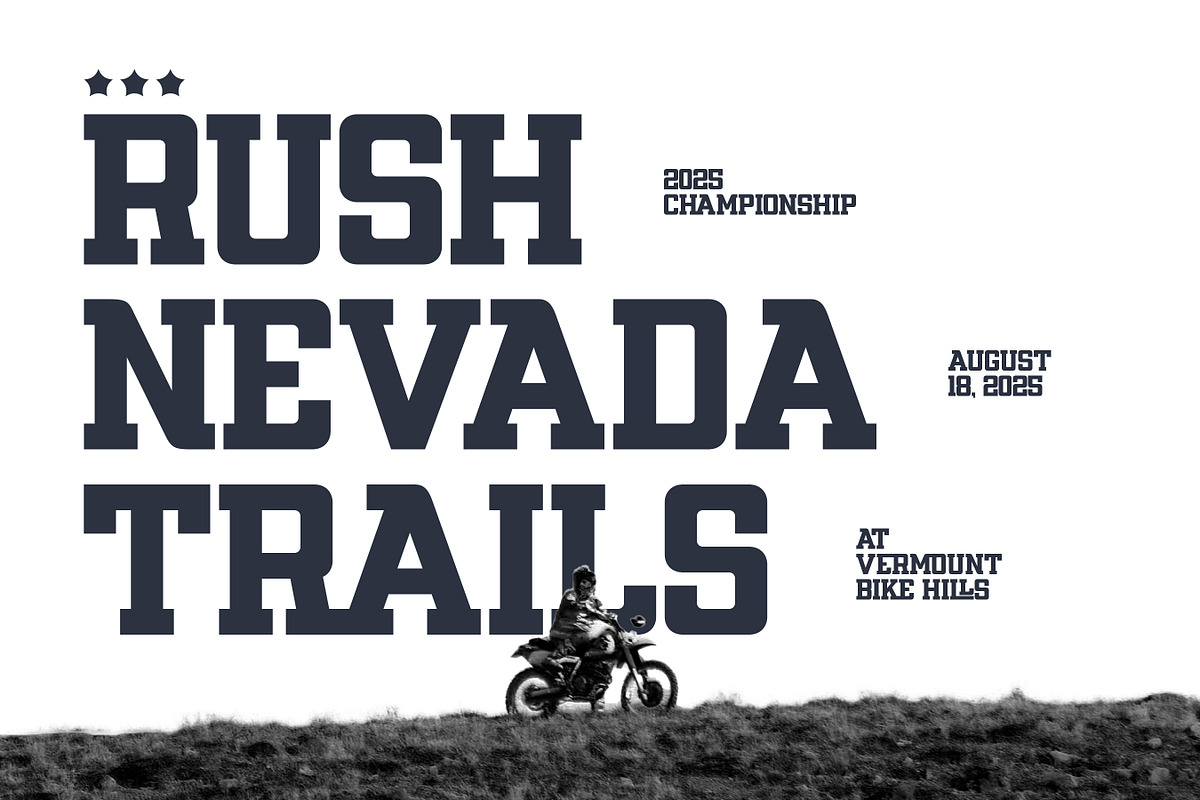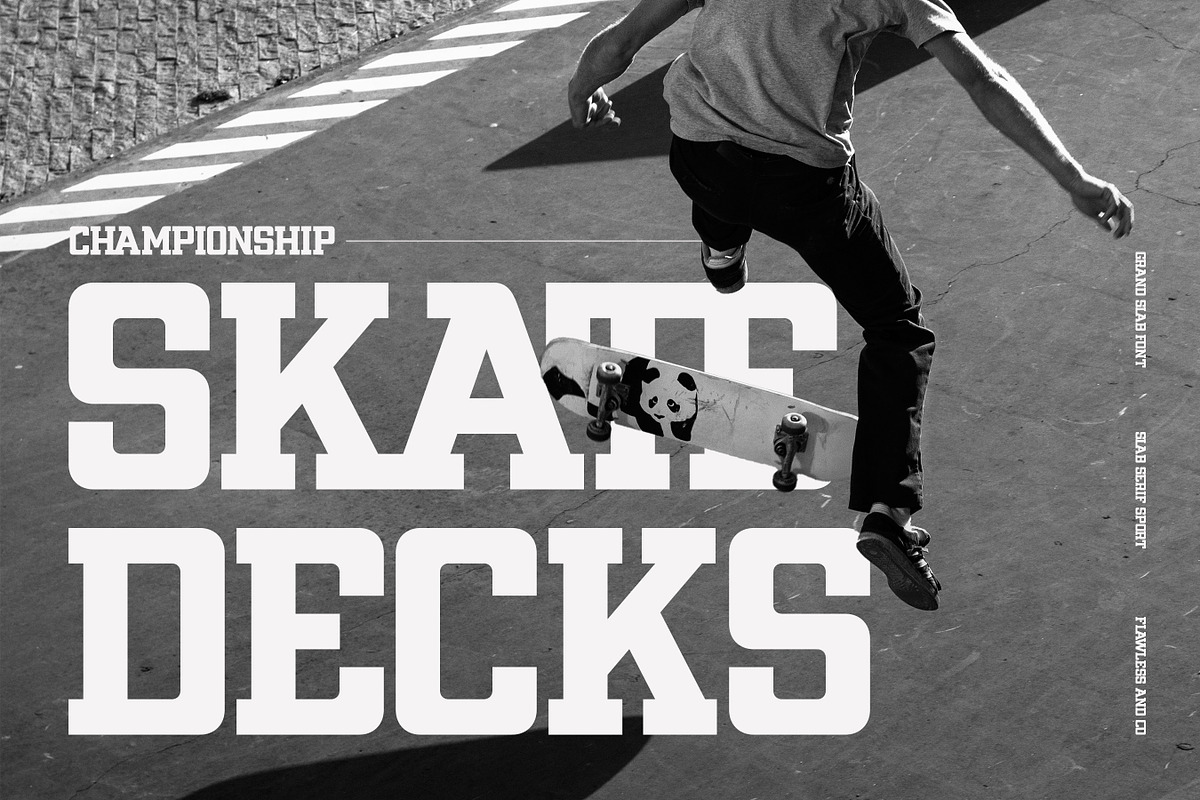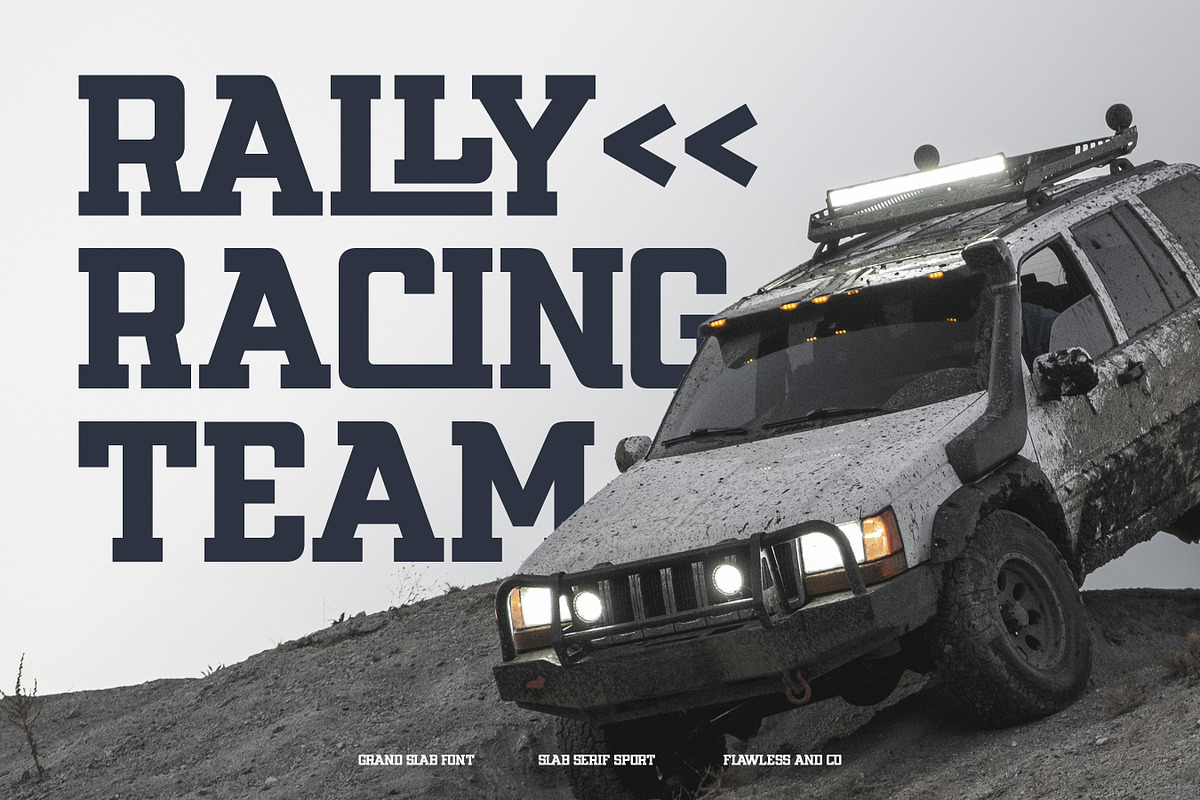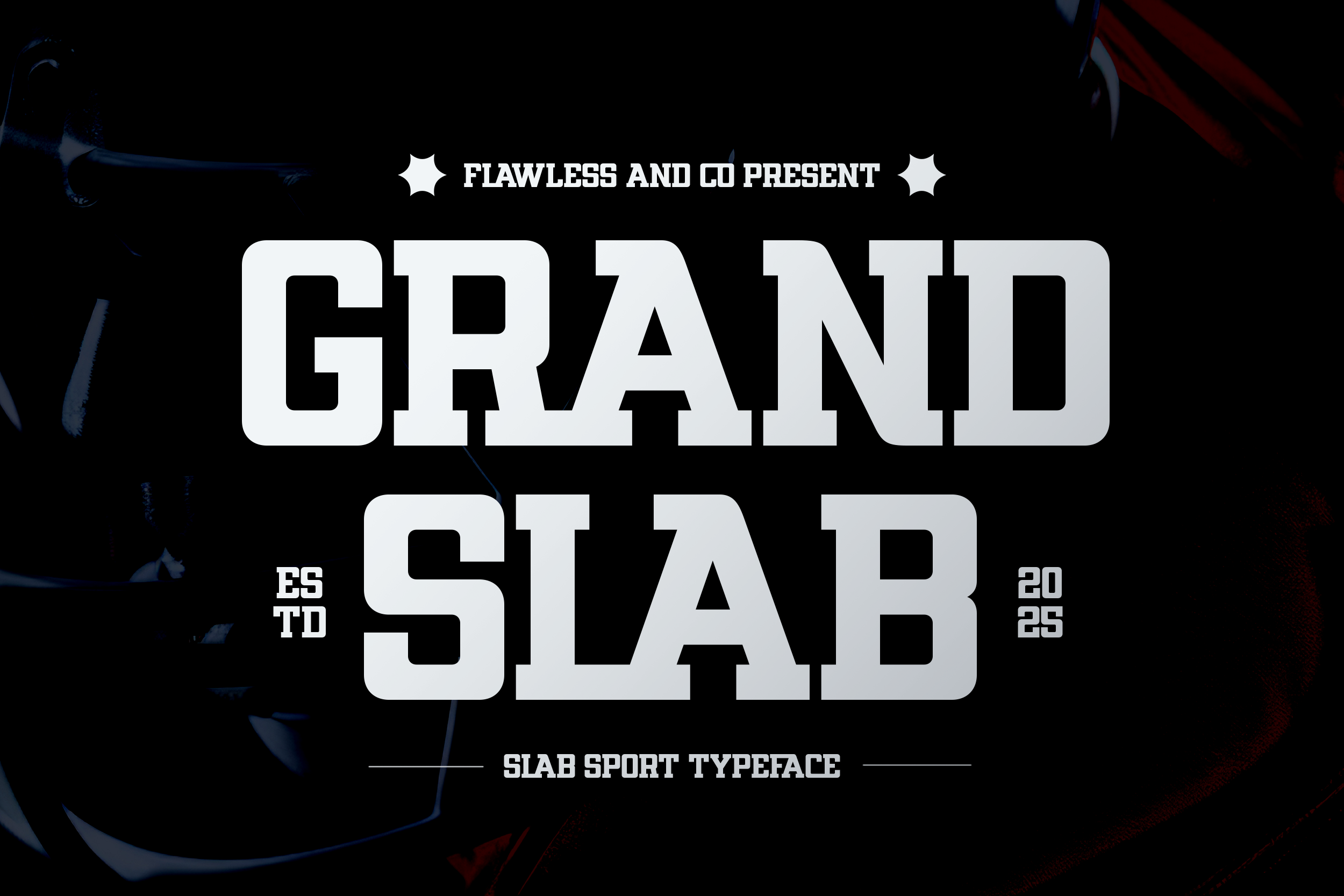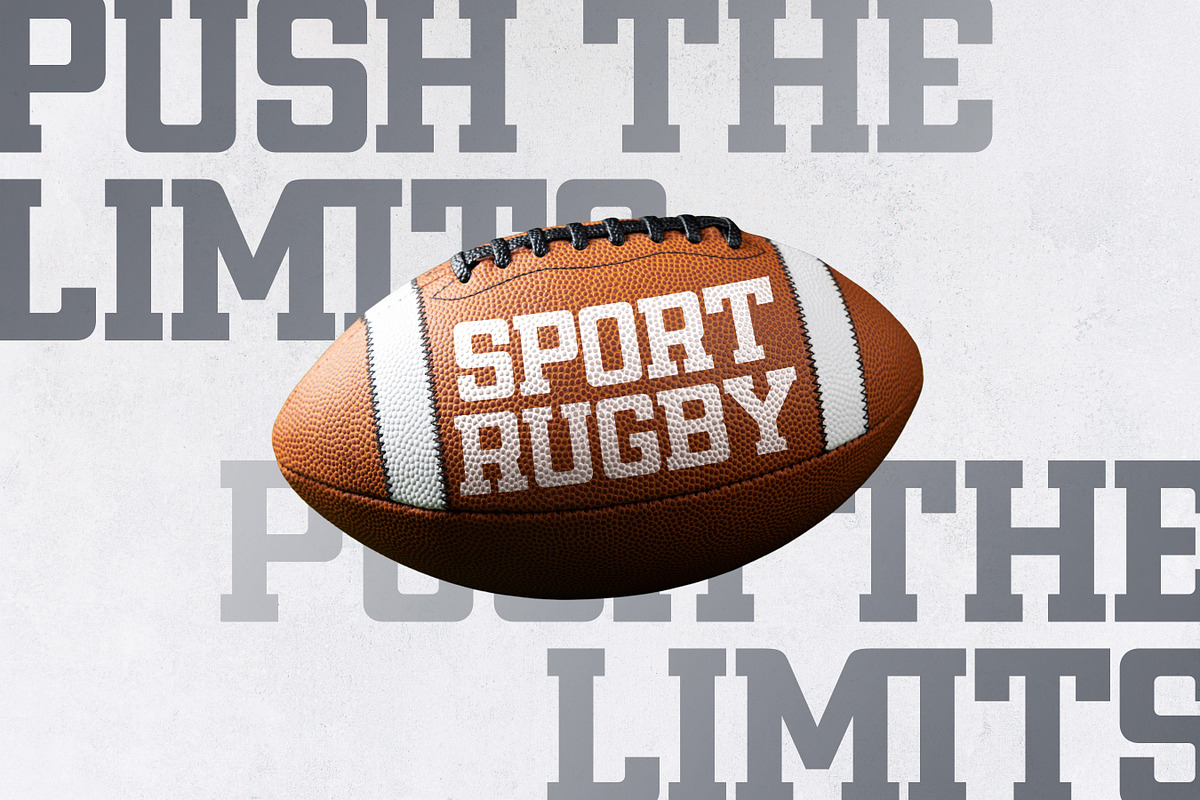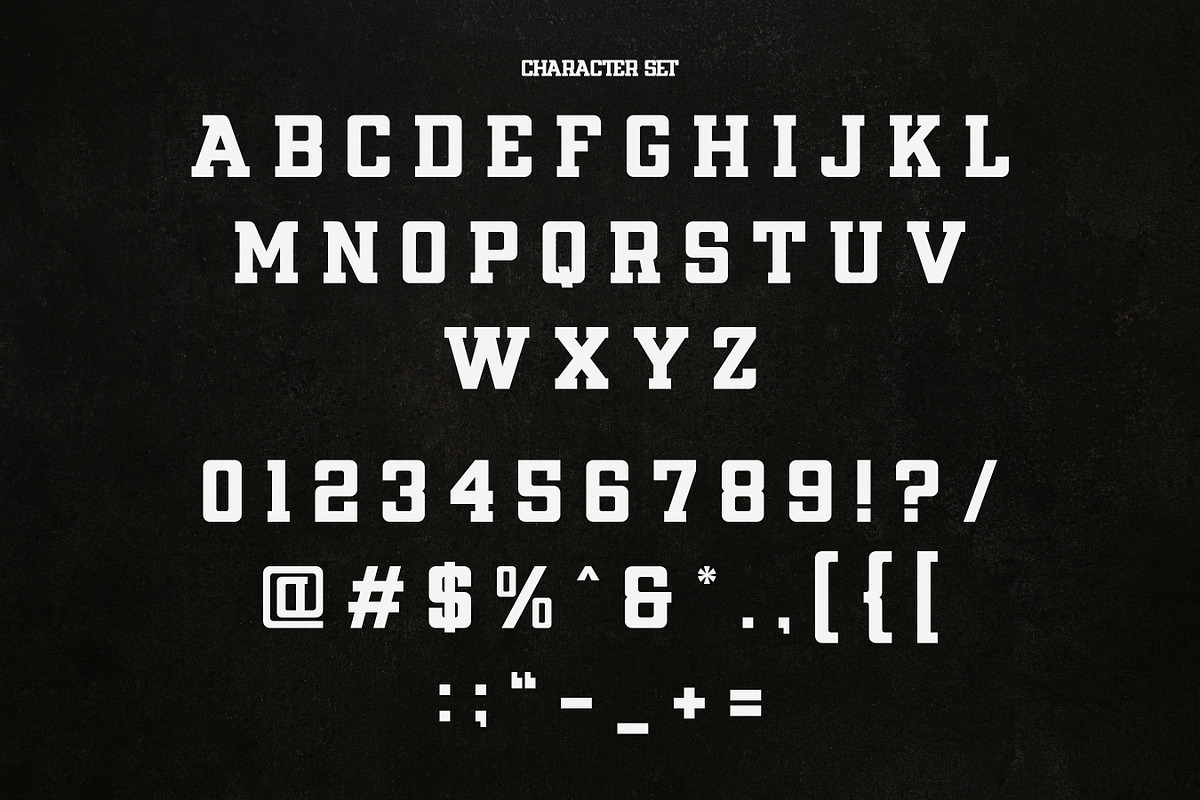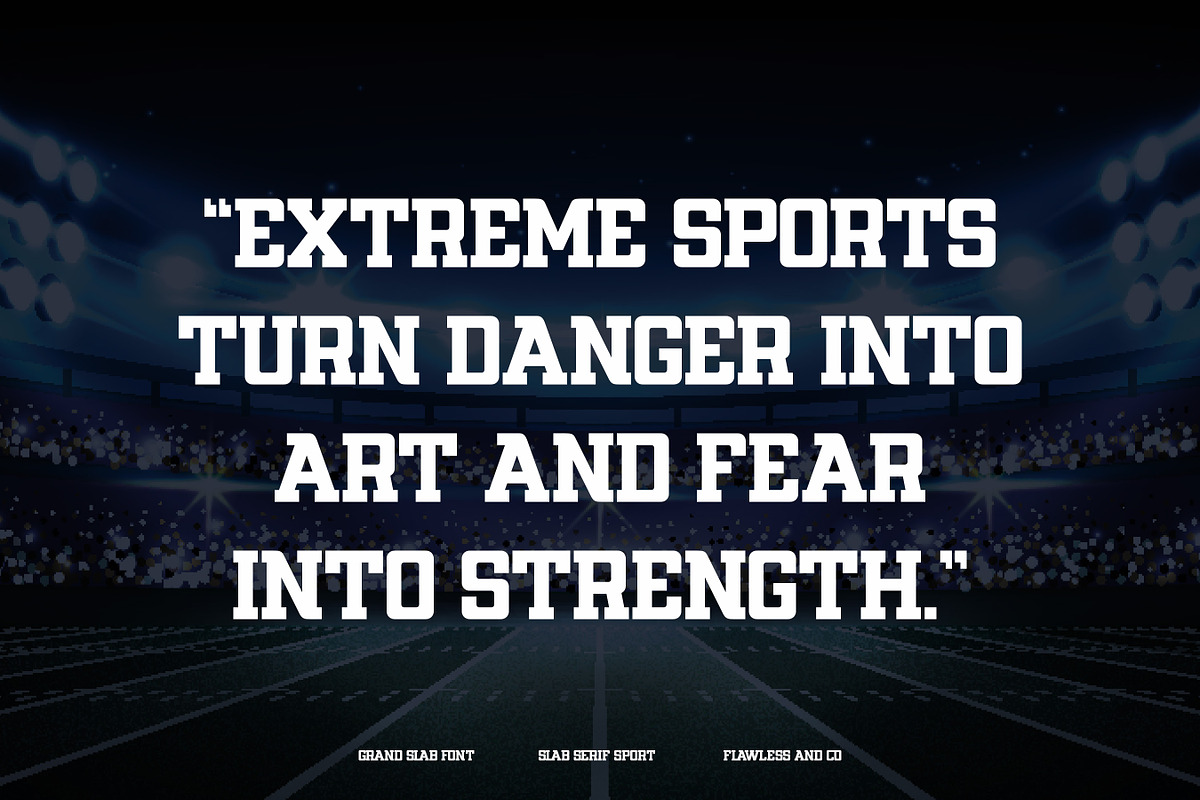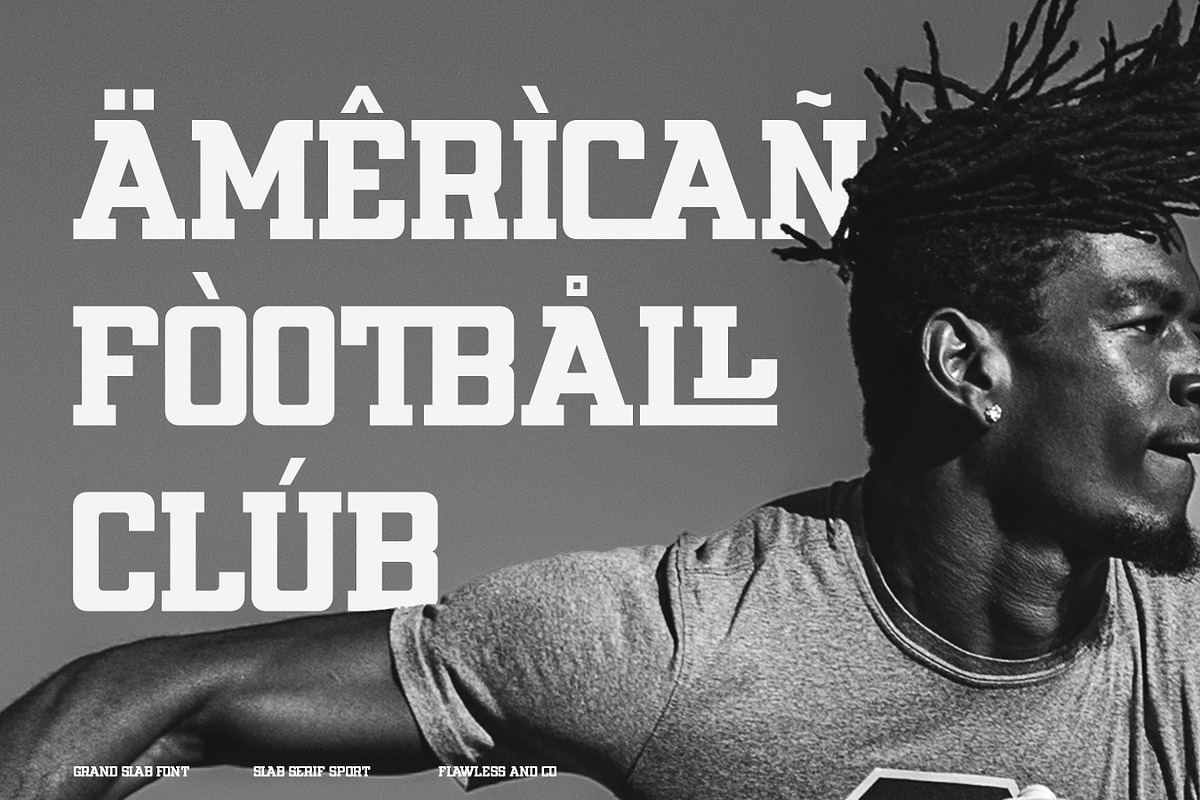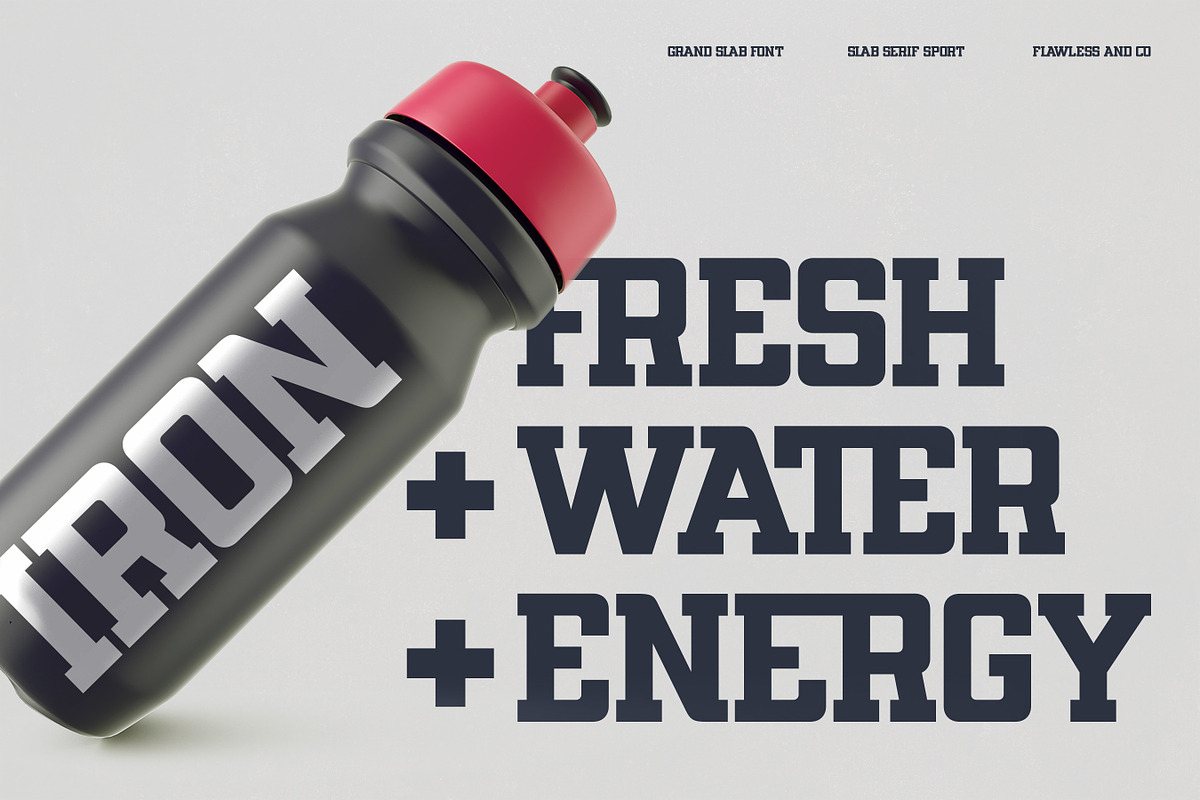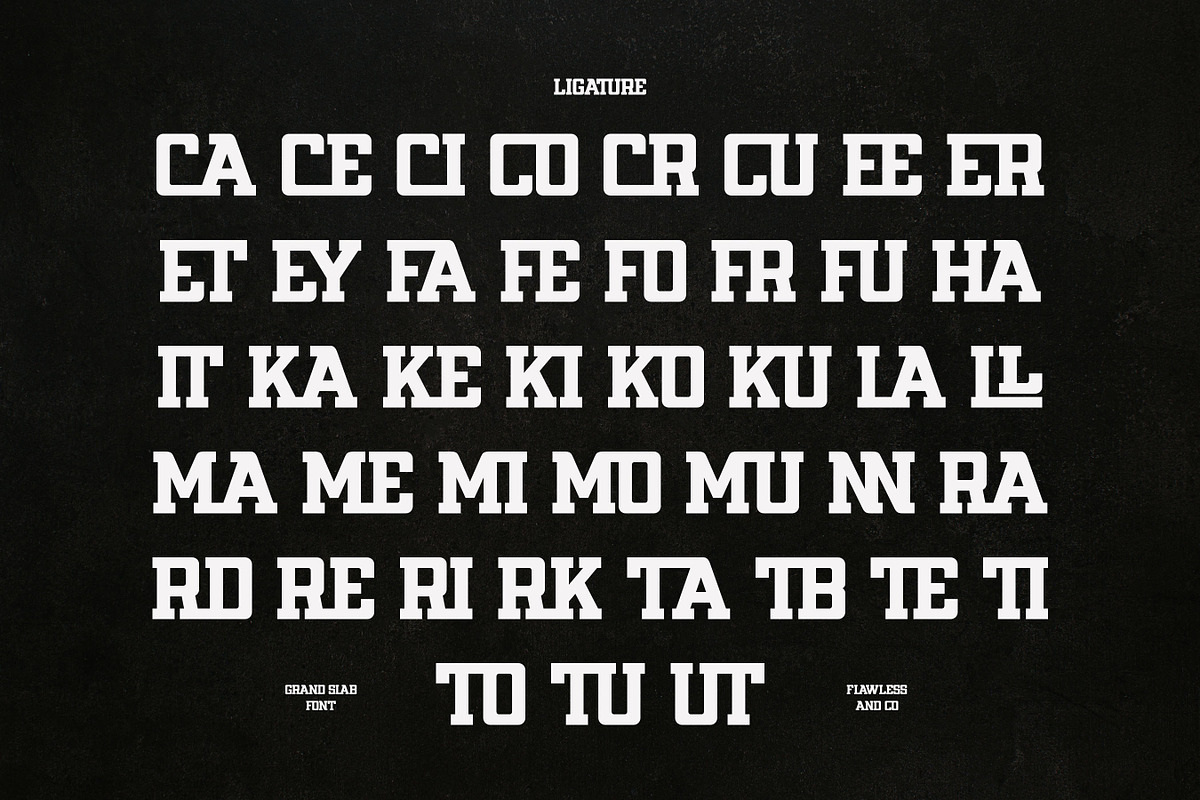
Grand Slab - Slab Sport Font
Grand Slab is a bold and powerful slab sport typeface designed to capture the energy, strength, and determination of athletic performance. With its strong slab serifs, solid structure, and commanding presence, this font delivers impact and authority in every design. Built for sports branding, dynamic posters, and statement logos, Grand Slab embodies the grit and intensity of competition while staying versatile and stylish.
Who Should Use Grand Slab?
Grand Slab is made for designers, brands, and creators who want to project power, energy, and boldness through their typography.
This font is perfect for:
- Sports teams & athletic organizations needing a strong identity
- Event promoters & tournament organizers looking for bold, eye-catching titles
- Designers creating impactful posters, banners, or merchandise
- Fitness, gym, and lifestyle brands that want a tough, energetic look
- Logo creators who need a slab serif with strength and versatility
A Must-Have Font for "Brand and Logo" Creators and Designers
Grand Slab is more than just a typeface — it’s a powerhouse of bold style and athletic energy. With its strong slab serif design, it brings confidence, clarity, and impact to every project. Whether you’re building a brand identity, designing a sports logo, or crafting promotional visuals, Grand Slab ensures your work stands out with authority and style.
Why Choose Grand Slab for "Brand and Logo" Projects?
Grand Slab is built for designers and brands that need strength, versatility, and timeless appeal. Its bold slab serif style creates a commanding presence that instantly captures attention, making it perfect for impactful logos and professional branding. With a balance of modern edge and classic structure, Grand Slab adapts seamlessly to sports identities, corporate designs, and lifestyle brands — giving your projects a confident and memorable voice.
Suitable For:
- Brand identities and powerful logo design
- Sports team branding and athletic merchandise
- Editorial layouts, headlines, and magazine covers
- Corporate presentations and business materials
- Posters, signage, and impactful advertising
- Lifestyle products and apparel packaging
- Social media graphics and bold marketing campaigns